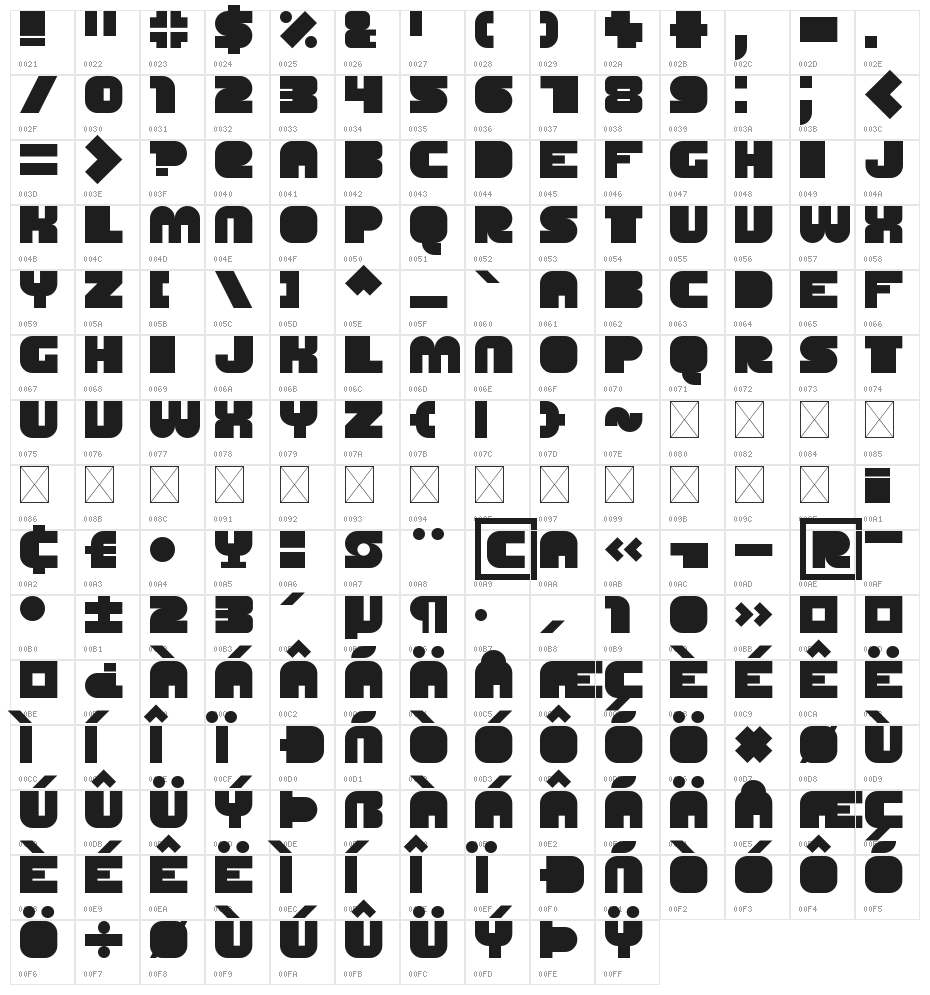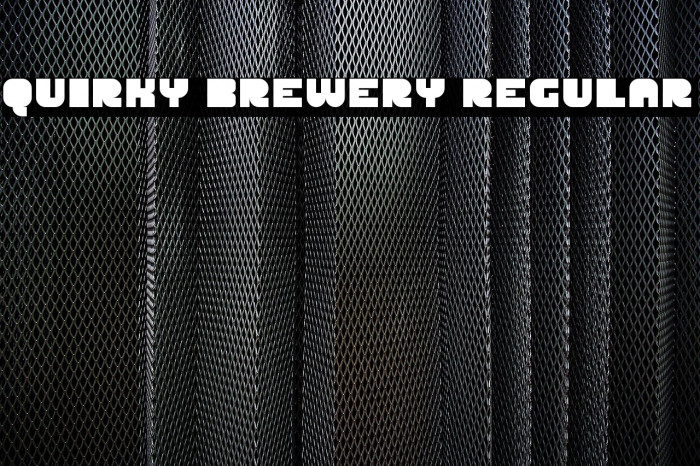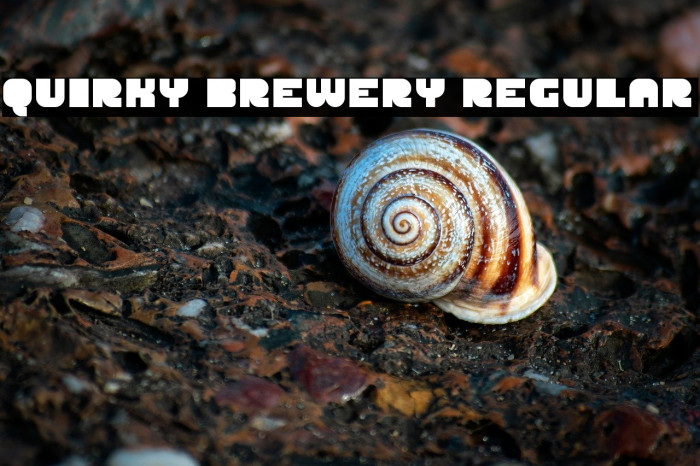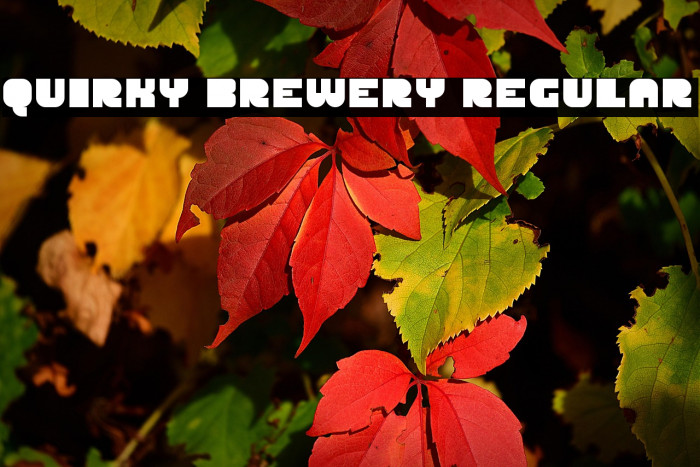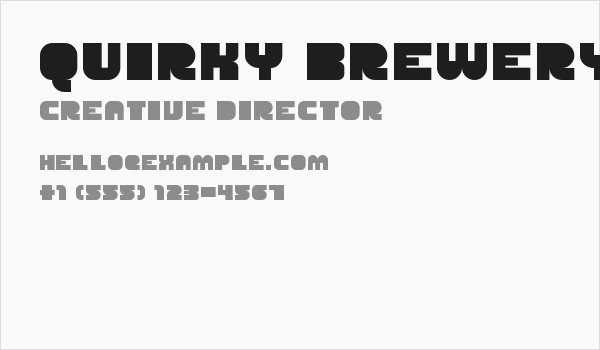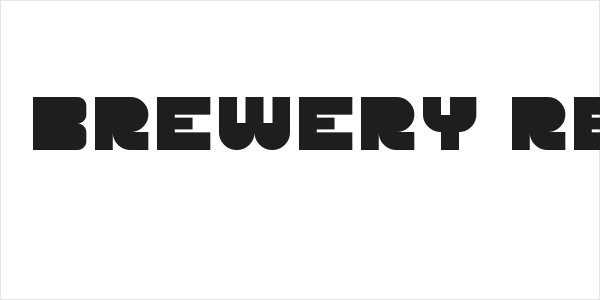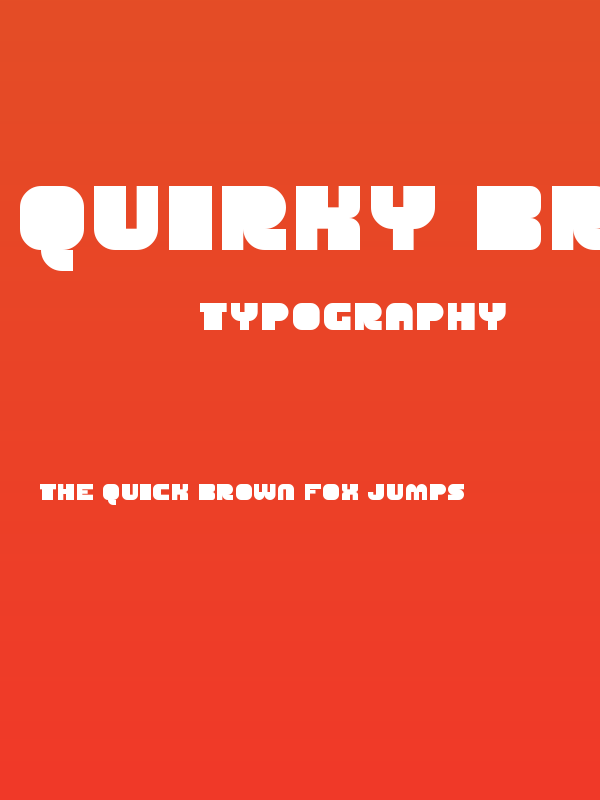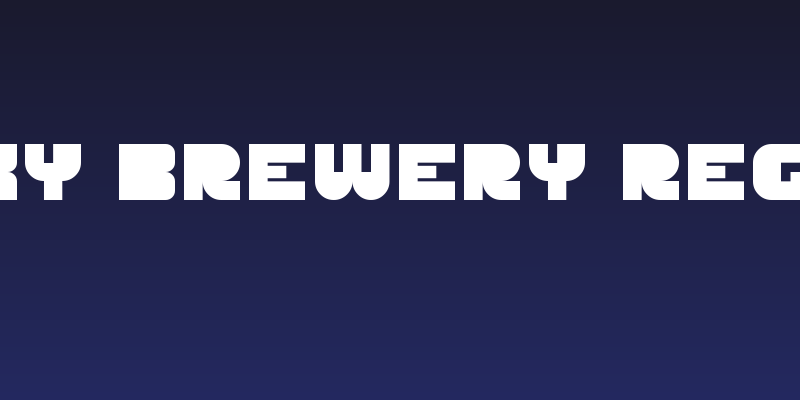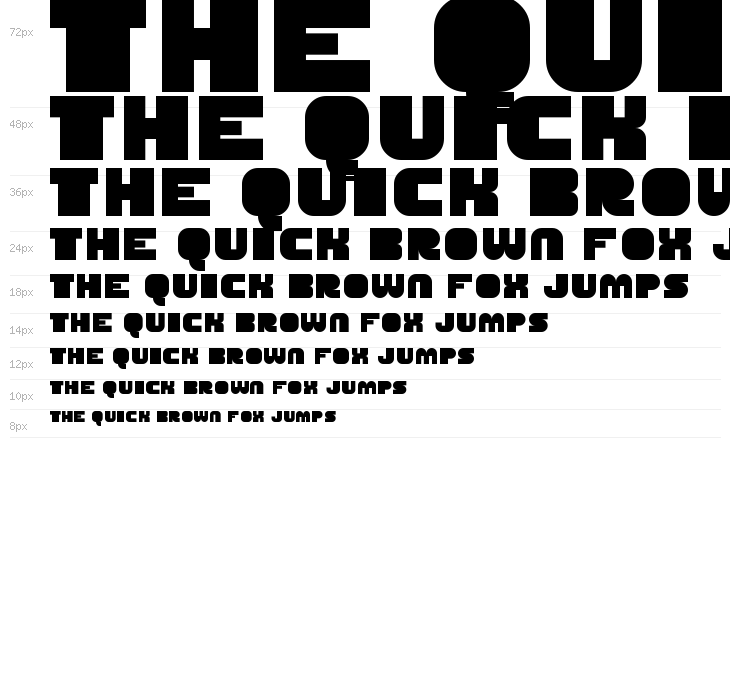
Quirky Brewery Regular Font
Quirky Brewery Regular Description
This font features a bold, geometric style with a playful and quirky aesthetic. The characters are constructed with thick, block-like shapes, giving it a strong presence. The uppercase and lowercase letters maintain a consistent width, creating a uniform appearance. The numbers and special characters follow the same design principles, ensuring cohesion across all elements. The font's unique style makes it stand out, with its rounded edges and distinct cutouts adding a touch of modernity and fun.
| Proposed Projects | Ideal for branding projects, posters, and packaging design where a bold and playful look is desired. |